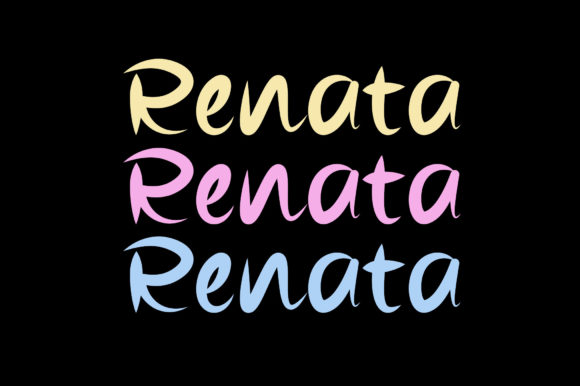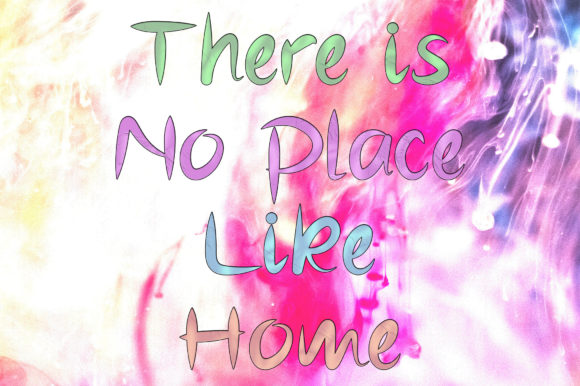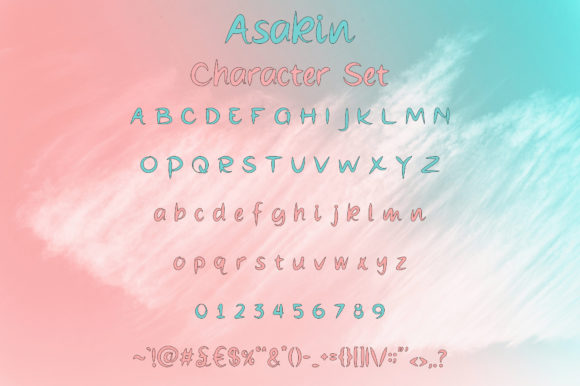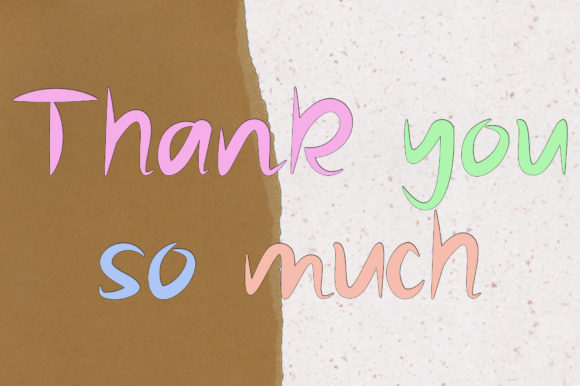
The Perfect Font to Take Your Creations to the Next Level
Have you ever stared at a blank canvas, waiting for inspiration to strike? That’s exactly what happened to me last week, and then it hit me – the perfect font to bring my design to life. As I browsed through my font library, my eyes landed on the elegant Asakin Font. Its chic and casual vibe instantly sparked a creative idea, and I knew I had to share it with you.
Asakin Font is a versatile display font designed to elevate any creation, no matter the topic or theme. Whether you’re a graphic designer, artist, or simply a creative enthusiast, this font is sure to become an invaluable asset to your library. Its unique blend of style and sophistication makes it the perfect addition to any design project, and its potential to make a lasting impression is undeniable.
Asakin Font Key Features
- Font Family: Asakin is a unique, high-quality font family that includes 6 styles (Thin, Light, Regular, Medium, Bold, and Black).
- Character Set: Includes a comprehensive character set, covering Latin, Cyrillic, and Greek alphabets, as well as a wide range of punctuation marks and symbols.
- Unique Characteristics: Asakin features a distinctive, modern design with a unique blend of geometric and organic elements, making it suitable for a wide range of design projects, from corporate identities to editorial and advertising materials.
Asakin Font Review
Overall, I was quite impressed with the Asakin Font. Here are some of its strengths: ✨
- Unique blend of modern and vintage elements
- Perfect for designers looking for something unconventional
- Elegant and sophisticated, making it suitable for high-end designs
- Might be too bold for some designs, potentially overwhelming the content
- Lack of a complete font family (only available in regular and bold weights)
- Not ideal for body text due to its large x-height and condensed proportions
Overall, I’d say the Asakin Font is a great choice for designers who want to make a statement and add some visual interest to their projects. While it may not be suitable for every design, it’s definitely worth considering for the right projects. Just be mindful of its limitations and use it sparingly to avoid overwhelming the content.
Getting the Most Out of Asakin Font
Asakin Font is a versatile font suitable for various design projects. To get the most out of it, consider the following tips:
– Use it for titles, headings, and body text to create a cohesive design.
– Experiment with different font sizes and colors to add visual interest.
– Pair Asakin Font with other fonts to create a unique and engaging design.
Asakin Font is ideal for:
– Business cards and letterheads
– Brochures and flyers
– Social media graphics and ads
– Web design and development